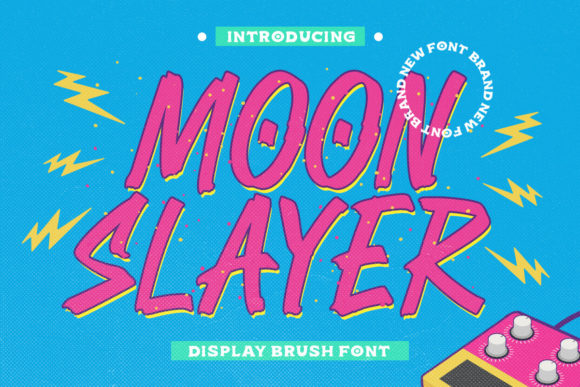
In a world teeming with digital designs, your projects yearn for a touch of raw, urban energy. They crave the visual impact that can captivate, intrigue, and leave an indelible mark on the digital landscape. Unleash the power of the "**MOONSLAYER FONT**", a street art display font that's poised to transform your creative visions into mesmerizing masterpieces.
With every character meticulously handcrafted, the "**MOONSLAYER FONT**" extols a captivating energy, the raw allure of street art brought into the digital domain. Its dynamic, brushed texture adds a layer of authenticity and visual interest to your designs, making them stand out from the ordinary and into the realms of the truly unforgettable.
The "**MOONSLAYER FONT**" is more than just a font; it's an expression of your untrammeled creative spirit. Its boldness empowers your designs to demand attention, while its versatility allows it to adapt seamlessly to a myriad of projects. Be it logo designs that command presence, captivating social media posts that break through the clutter, or eye-catching product designs that entice and allure, the "**MOONSLAYER FONT**" is your secret visual arsenal, ready to unleash your creative brilliance onto the world.
The world of design awaits your masterful touch, and the "**MOONSLAYER FONT**" is your conduit to creative freedom. Let your ideas coalesce, your designs flourish, and your projects transcend the ordinary with the empowering artistry of the "**MOONSLAYER FONT**". Elevate your work to the pinnacle of visual allure, where every design tells a captivating story, leaving an enduring impact on the digital canvas of the modern era.